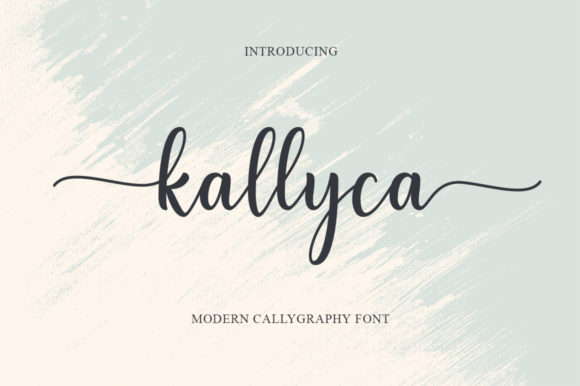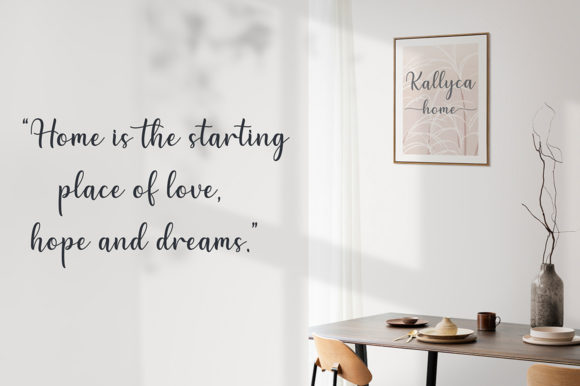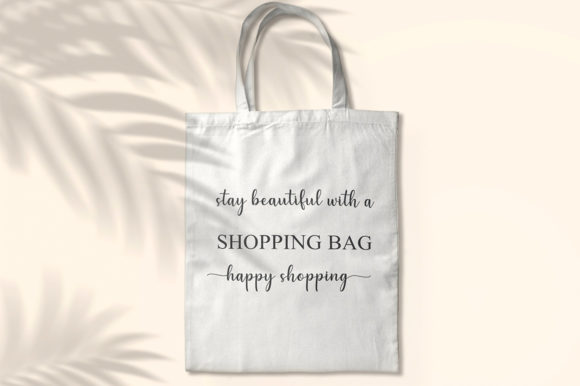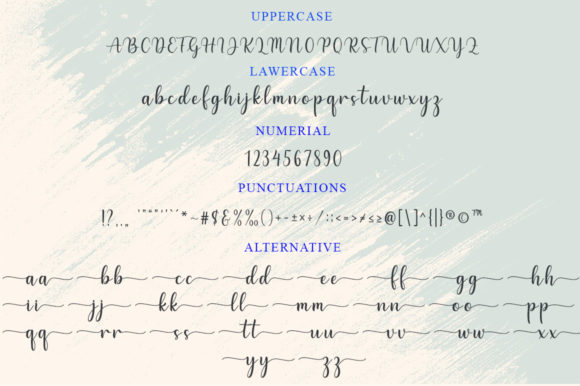
Kallyca Font
About the Kallyca Font
Let us introduce you to Kallyca Font, where timeless design meets modern craftsmanship. Kallyca is a lovely and timeless handwritten font. It is the best choice for creating eye catching logos, branding and quotes. This font is PUA encoded which means you can access all of the glyphs and swashes with ease!
Kallyca’s elegant, yet slightly informal style makes it ideal for branding projects requiring a touch of handwritten authenticity, particularly logos, short headlines, and social media graphics. It also works well for packaging design on products targeting a sophisticated, yet approachable audience. However, its delicate nature makes it unsuitable for body text or lengthy paragraphs. Avoid using it in UI contexts where high readability is paramount.
Pairing Kallyca with a clean sans-serif like Montserrat or Open Sans provides excellent contrast and enhances readability when used in combination. For a more classic feel, a serif like Garamond or Playfair Display would complement its timeless quality. Avoid pairing it with overly decorative or heavily stylized fonts, as this could detract from Kallyca’s inherent charm.
Kallyca projects a sophisticated yet friendly personality, conveying both elegance and approachability. It is best suited for brands that wish to communicate a sense of personality and handcrafted quality without sacrificing professional polish.